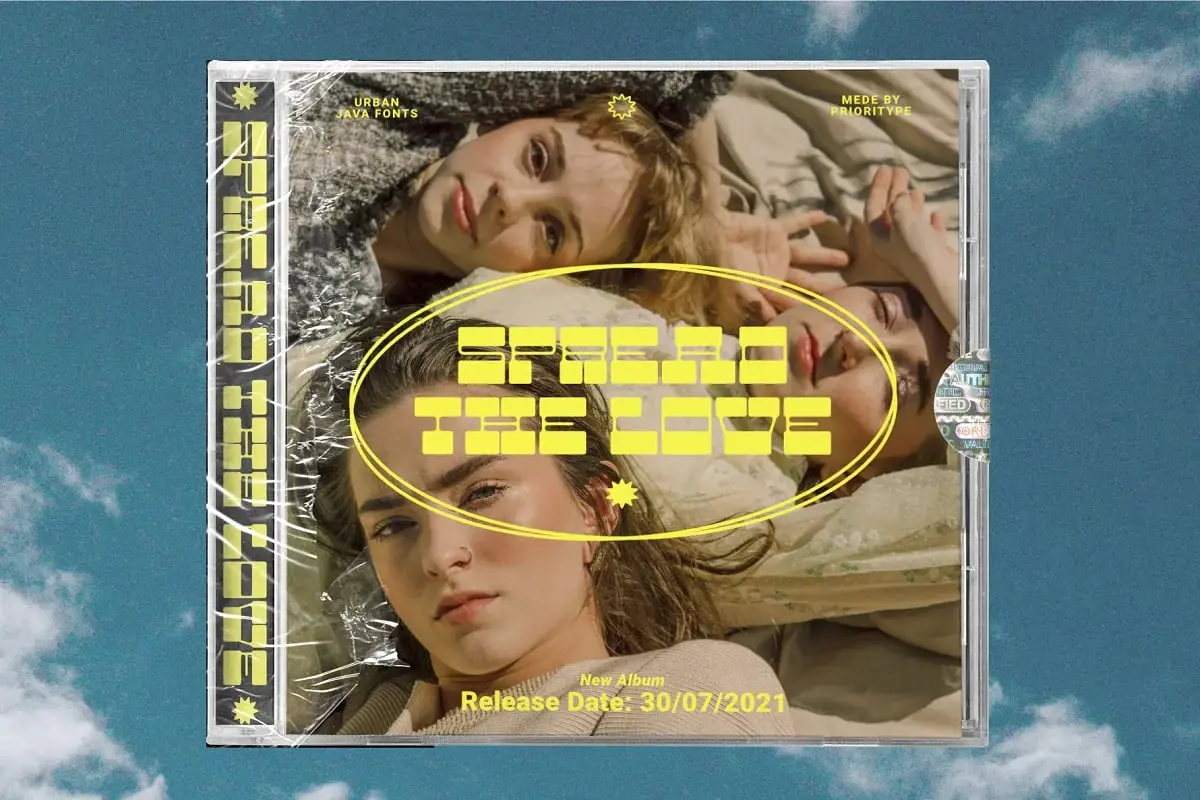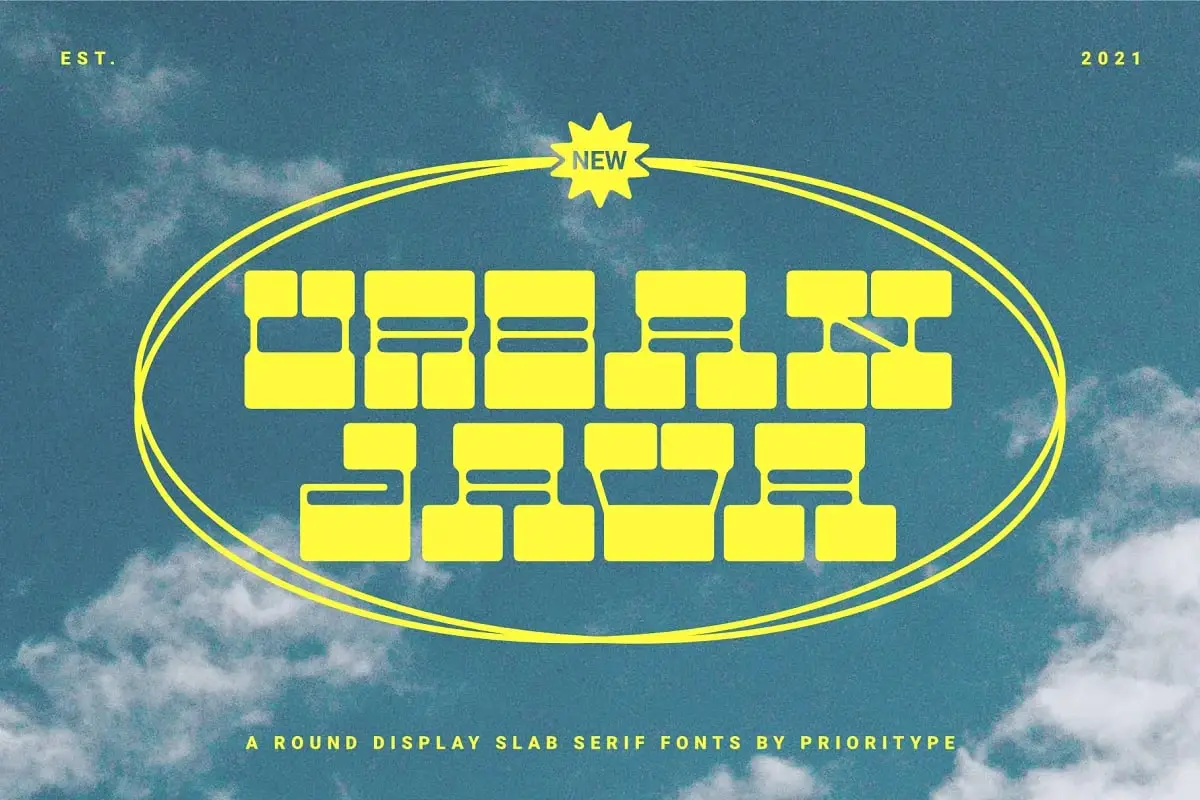
Prioritype-Urban Java Font
Introducing the Prioritype-Urban Java Font, a modern typeface designed to elevate your creative projects. This font features a unique blend of urban aesthetics and contemporary design, making it perfect for a variety of applications.
• Stylish and modern design
• Multiple weights for versatile usage
• Uppercase and lowercase characters
• Great for web design and user interfaces
• Perfect for print projects like posters and flyers